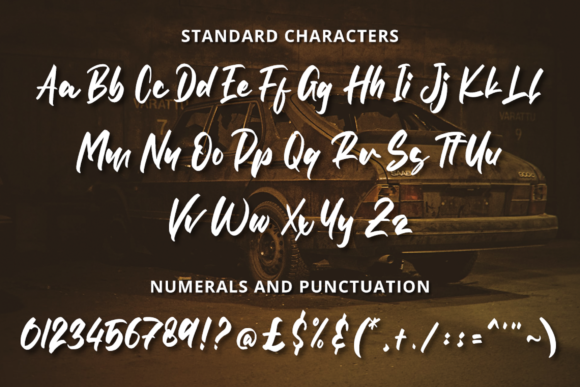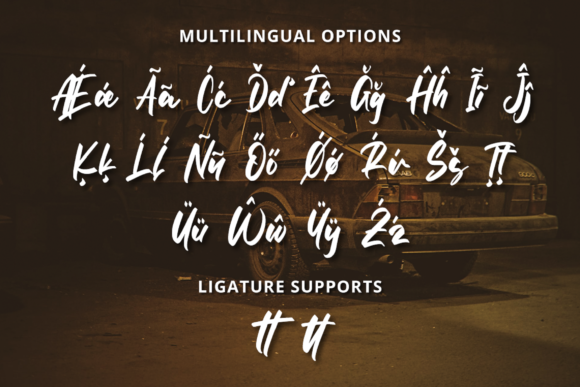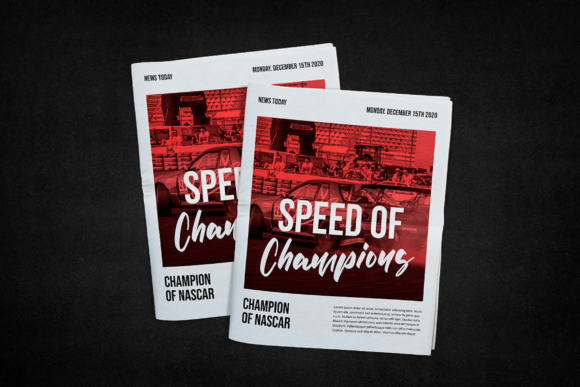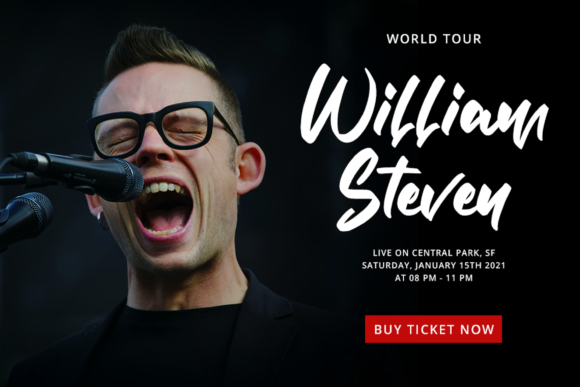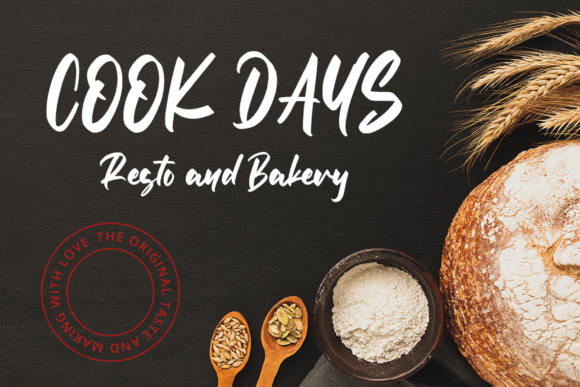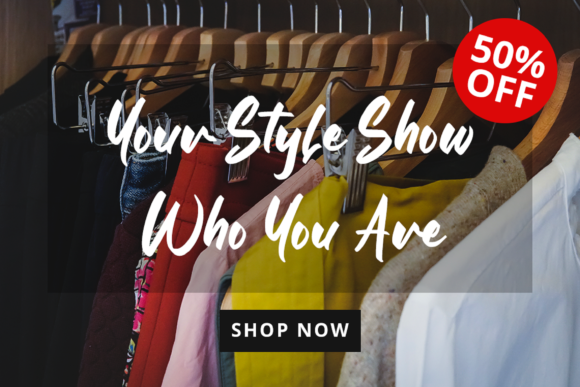
Introduction to Raphael Font
Raphael is a bold and fun script font.
Add this chunky lettered font to your designs and notice how it makes them come alive .
Key Features of Raphael Font
Why Choose Raphael Font?
Raphael Font offers exceptional quality and versatility, making it a valuable addition to your design toolkit. Whether you’re creating for personal projects or commercial use, Raphael Font delivers professional results.